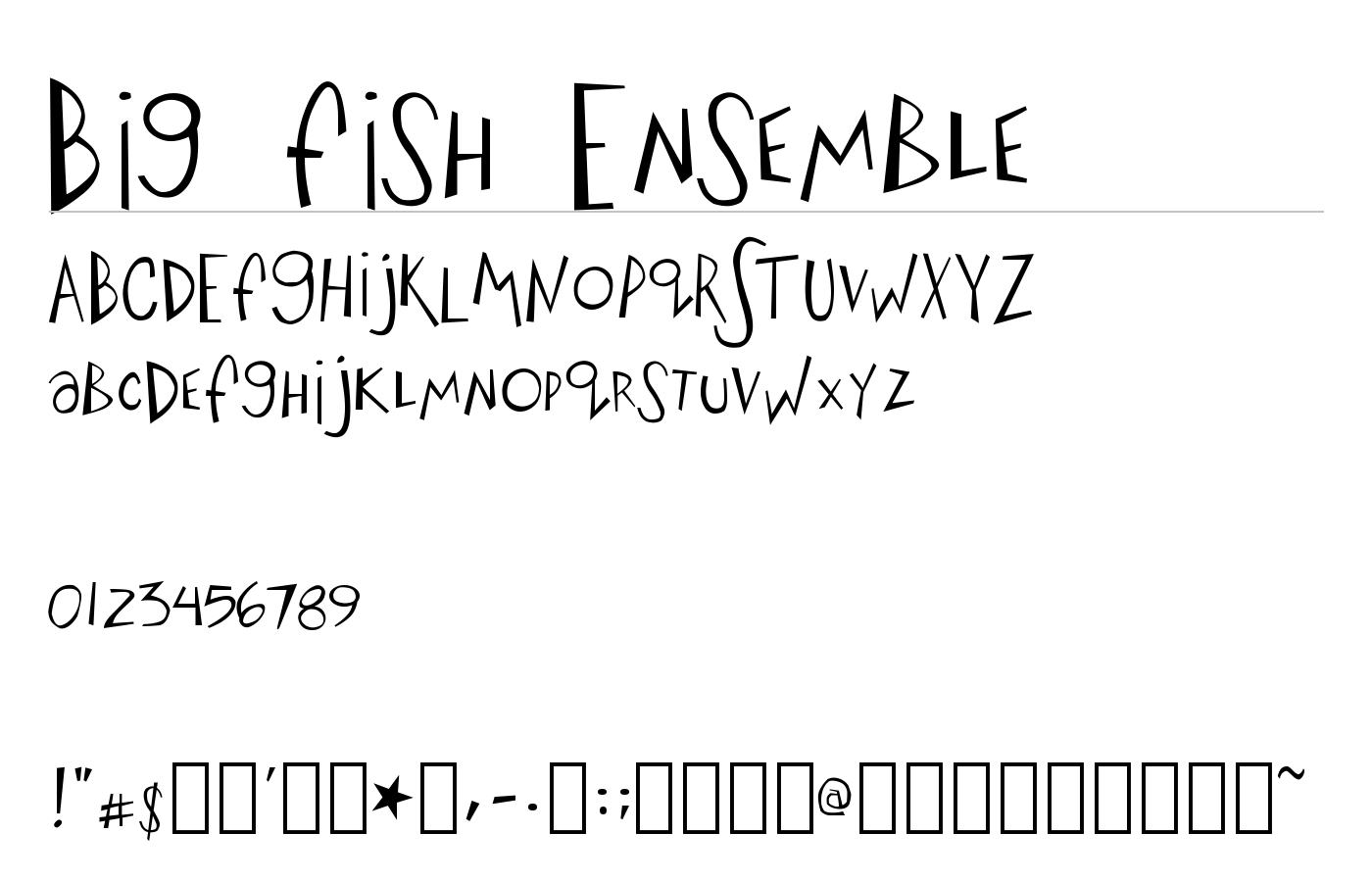
Big Fish Ensemble is a quirky, hand-drawn sans serif font with a playful and irregular character design that feels lively and whimsical. Its narrow, tall letterforms with uneven stroke widths and unique playful details make it perfect for creative projects, children’s books, and informal branding where a fun and casual tone is desired. This font stands out best in headlines and display uses, adding charm and personality without sacrificing readability.
Big Fish Ensemble Font
About Big Fish Ensemble Font